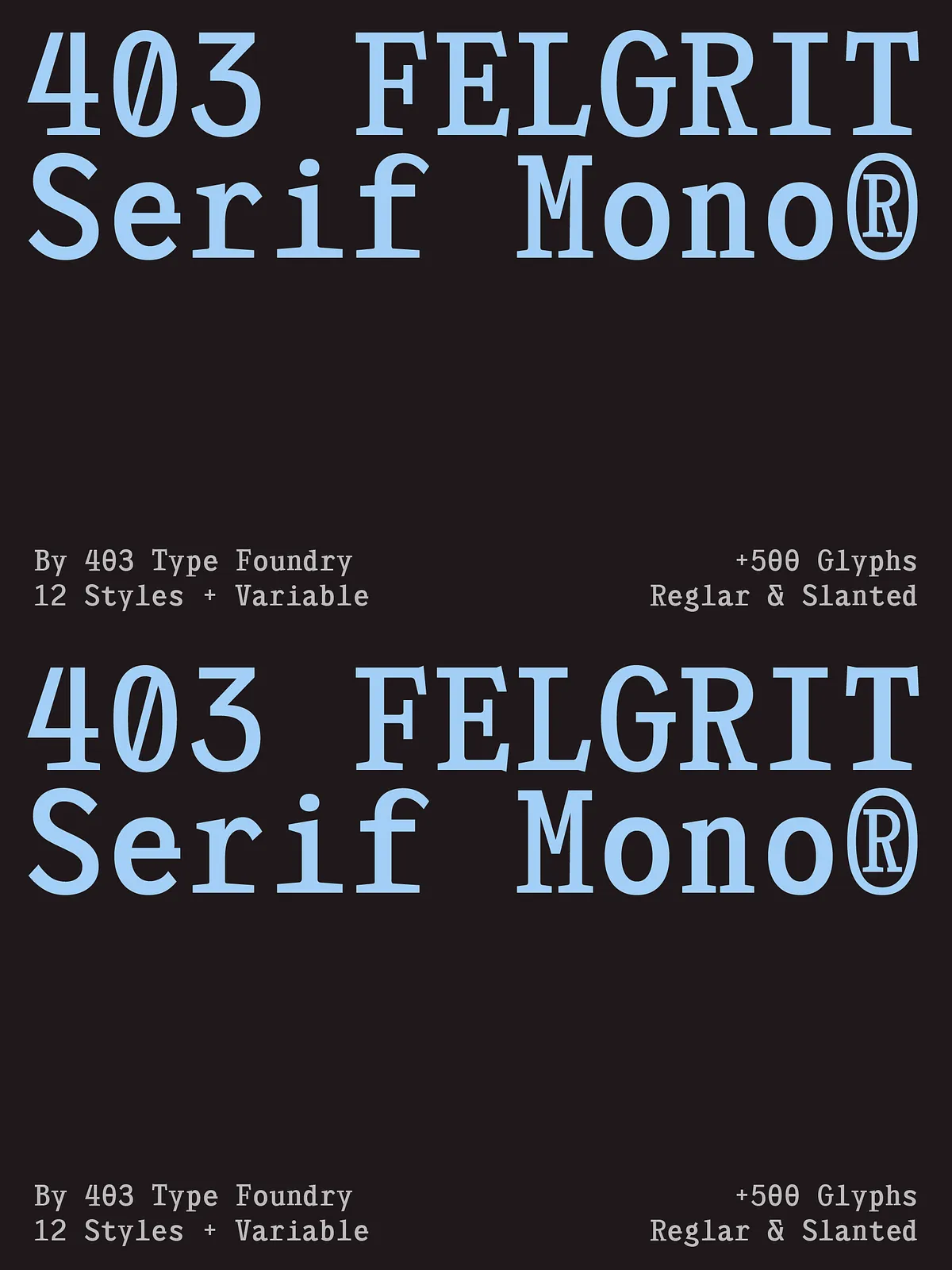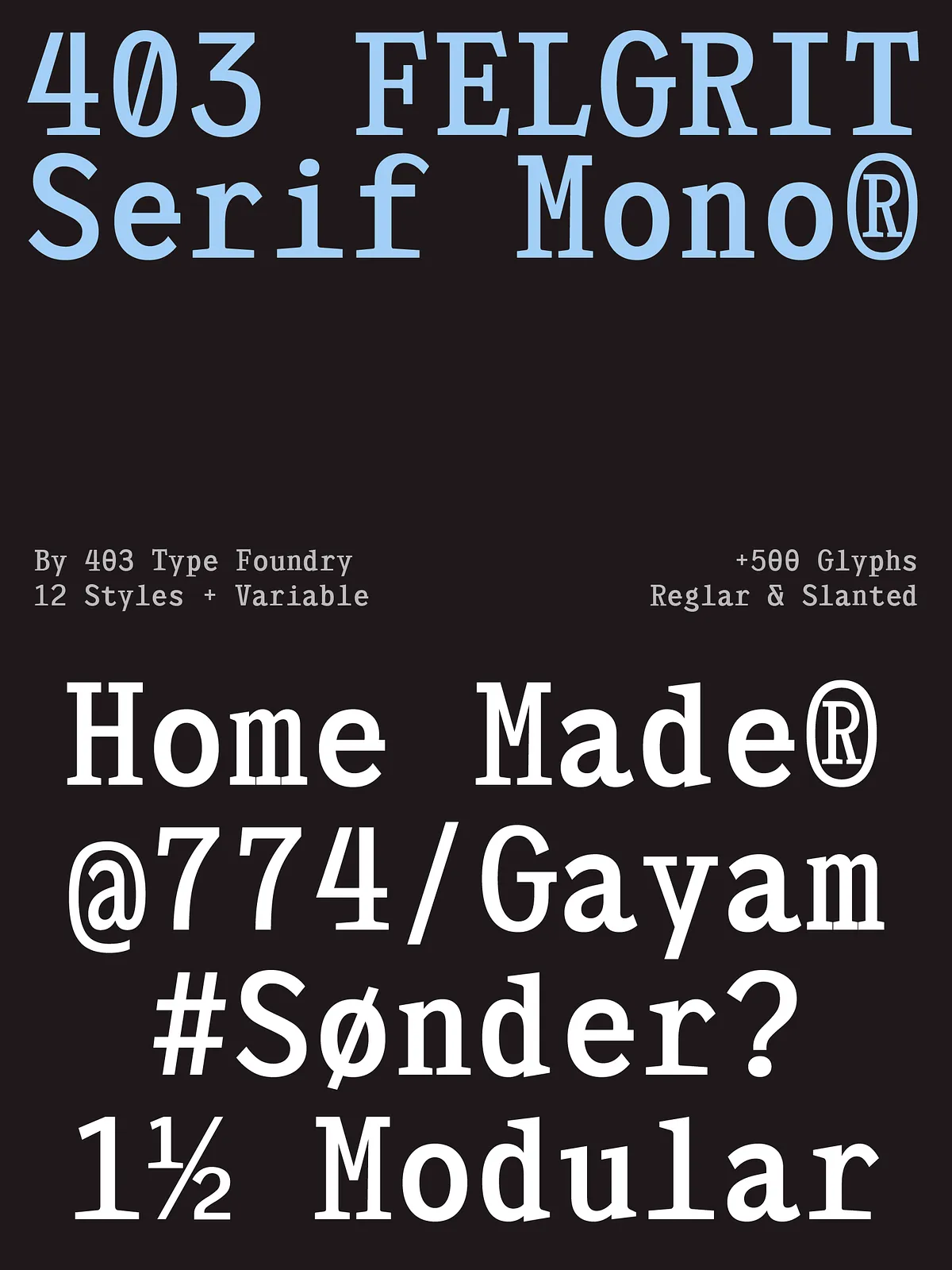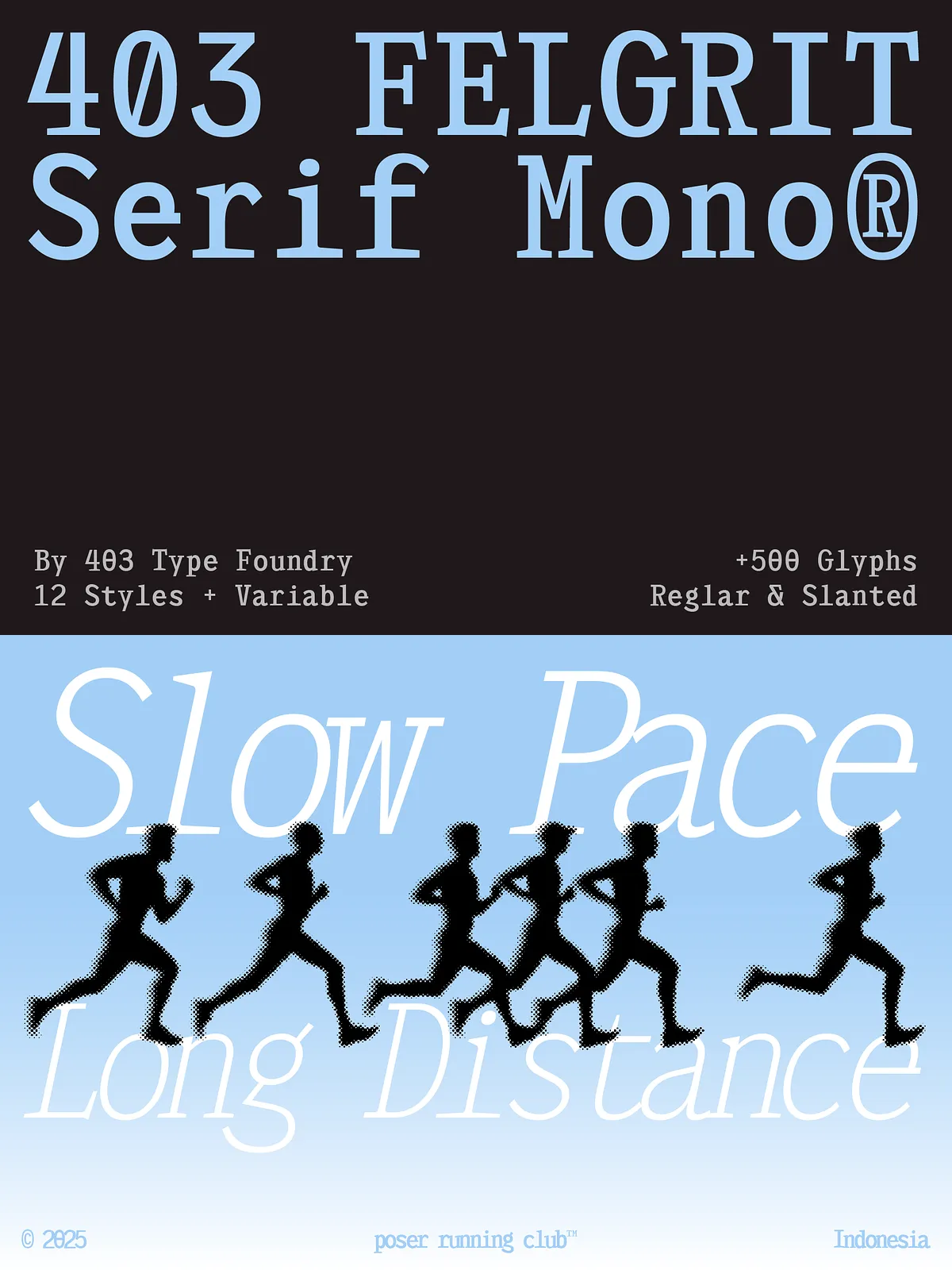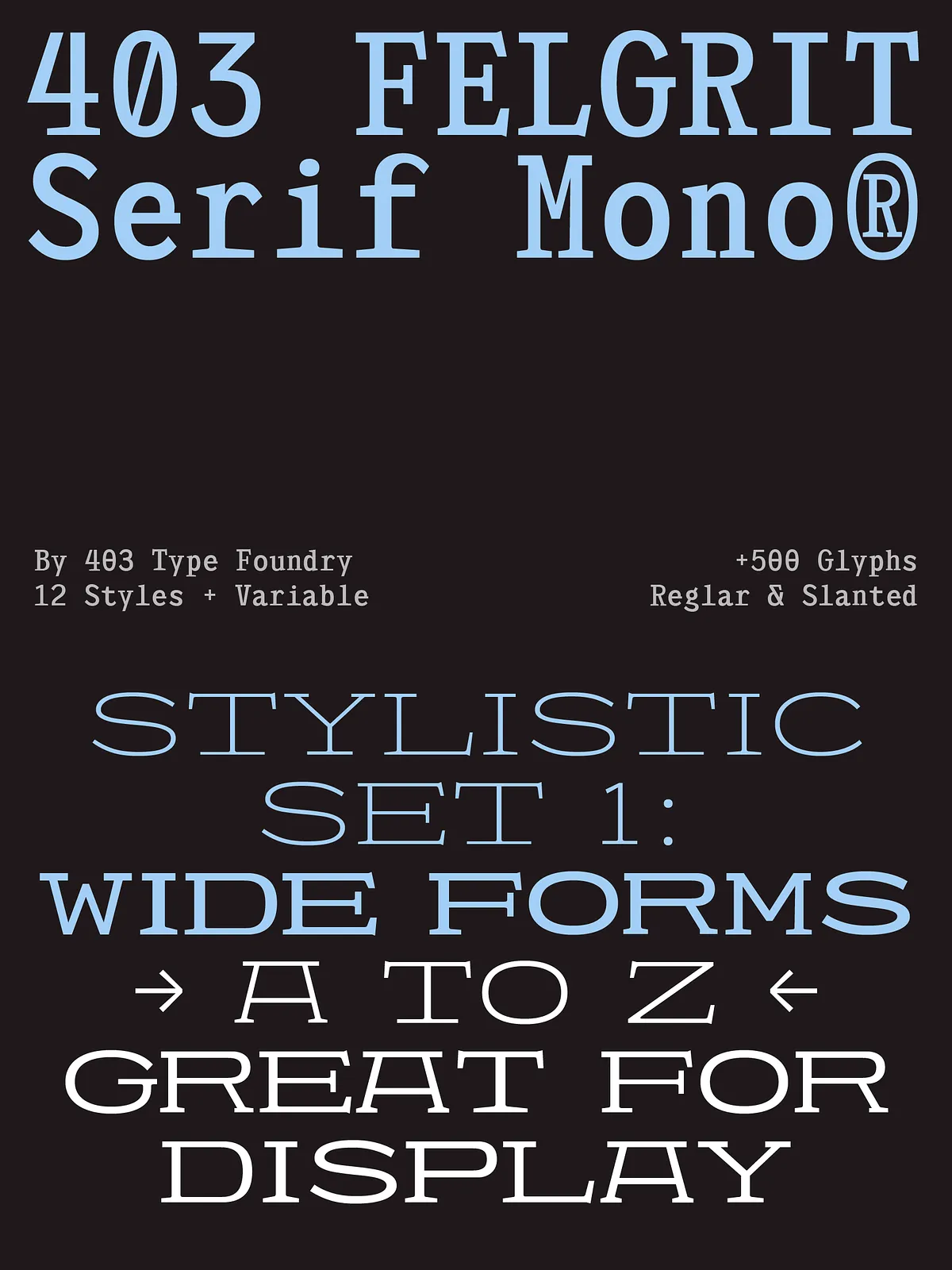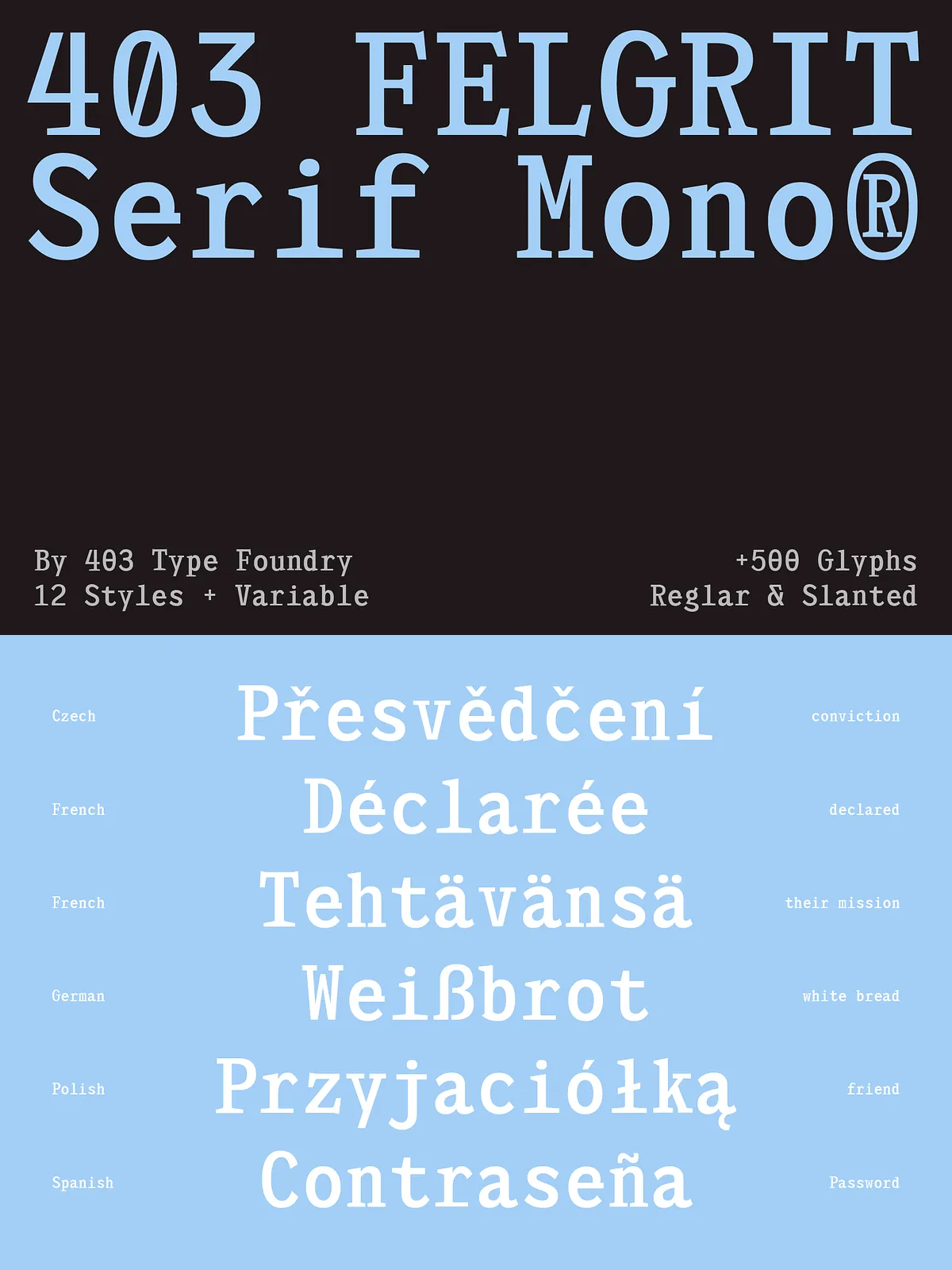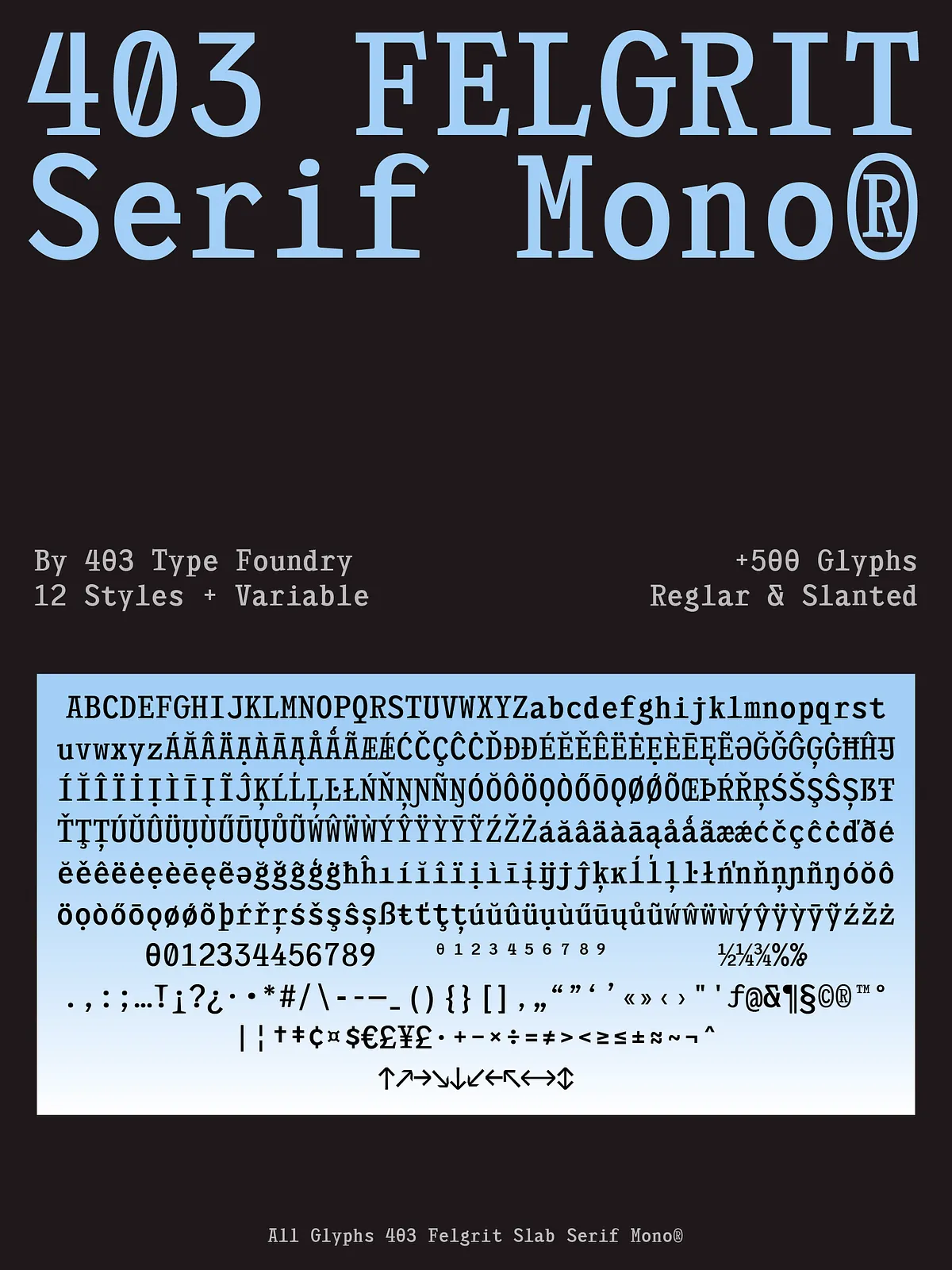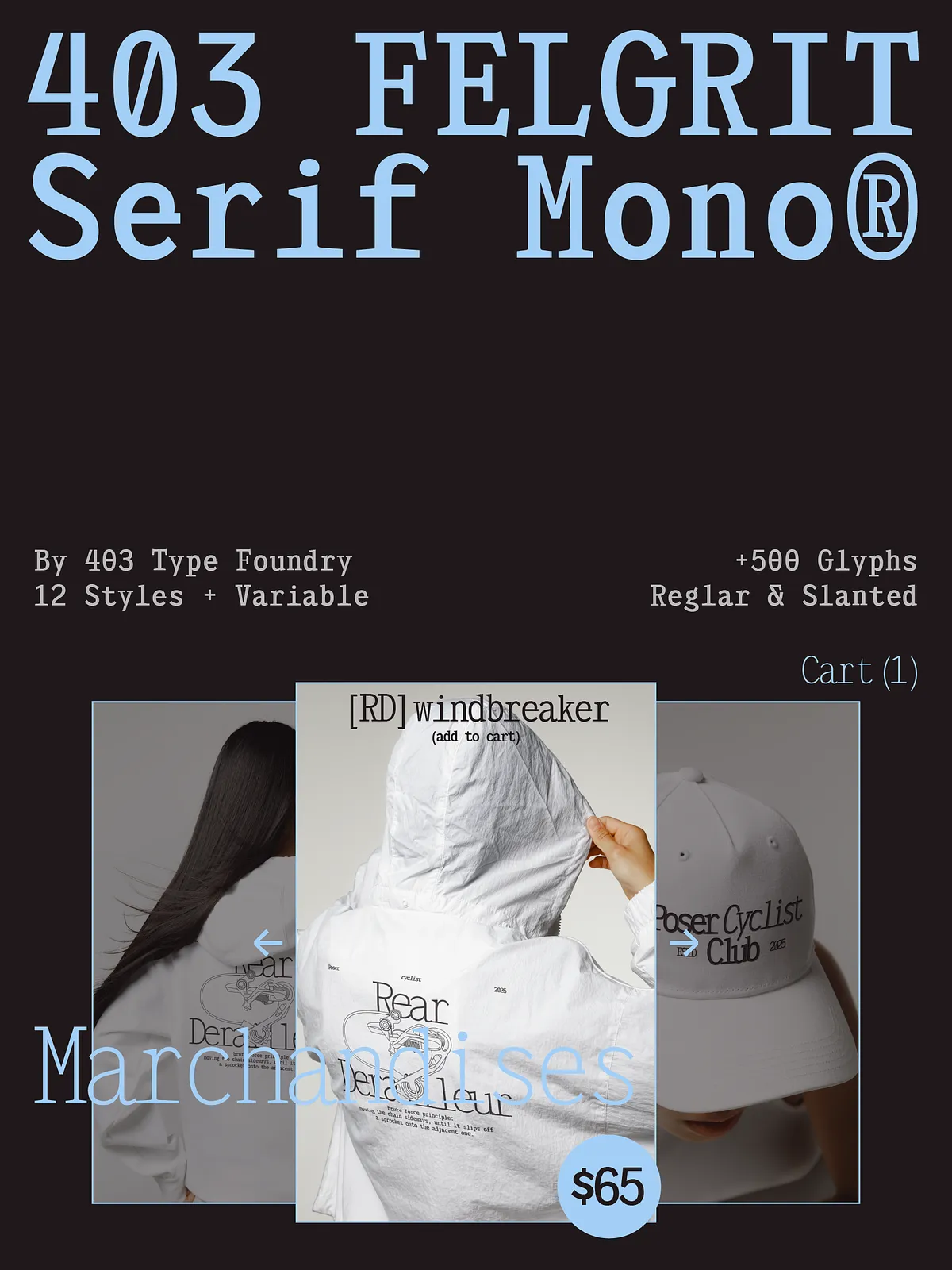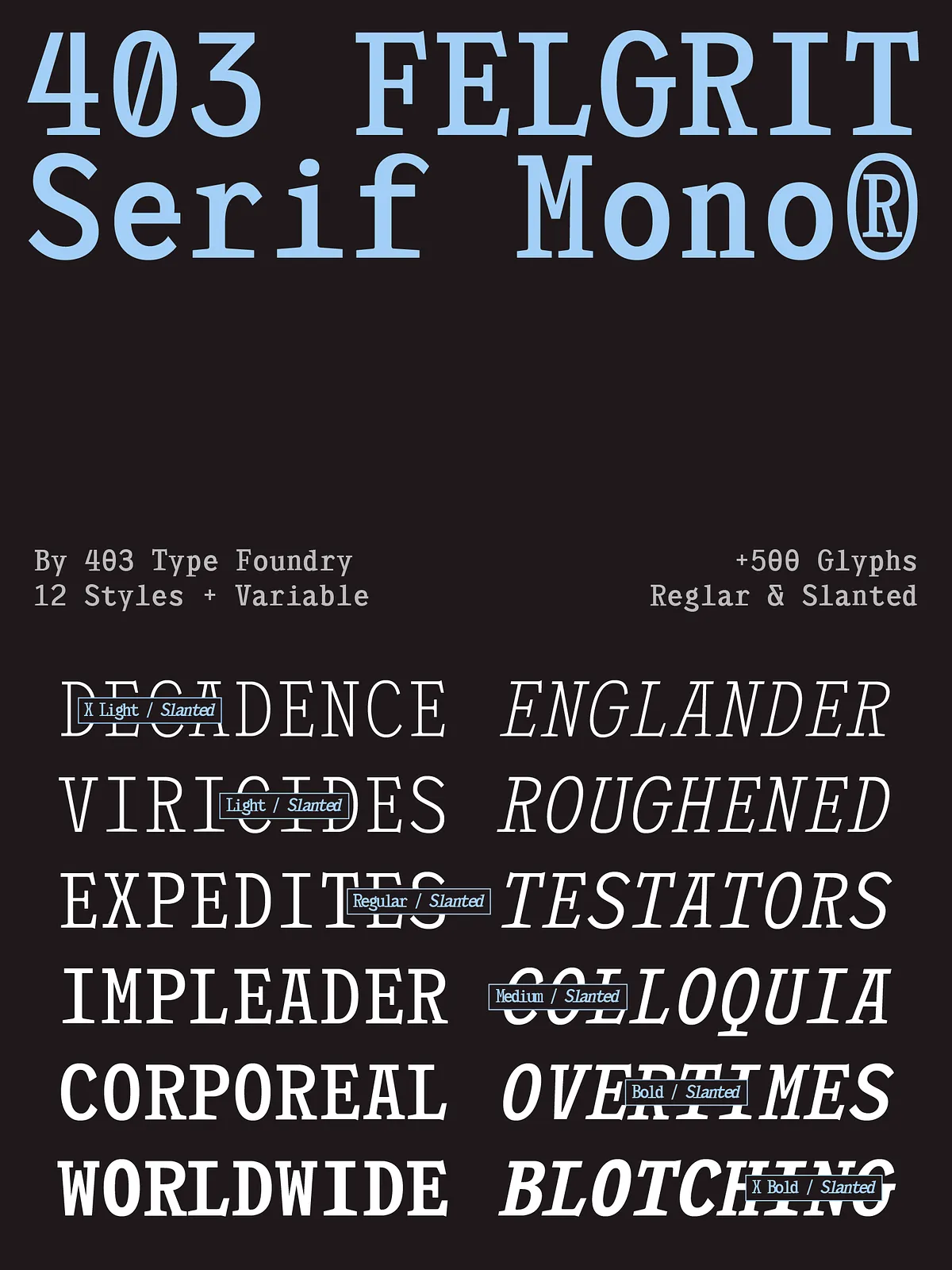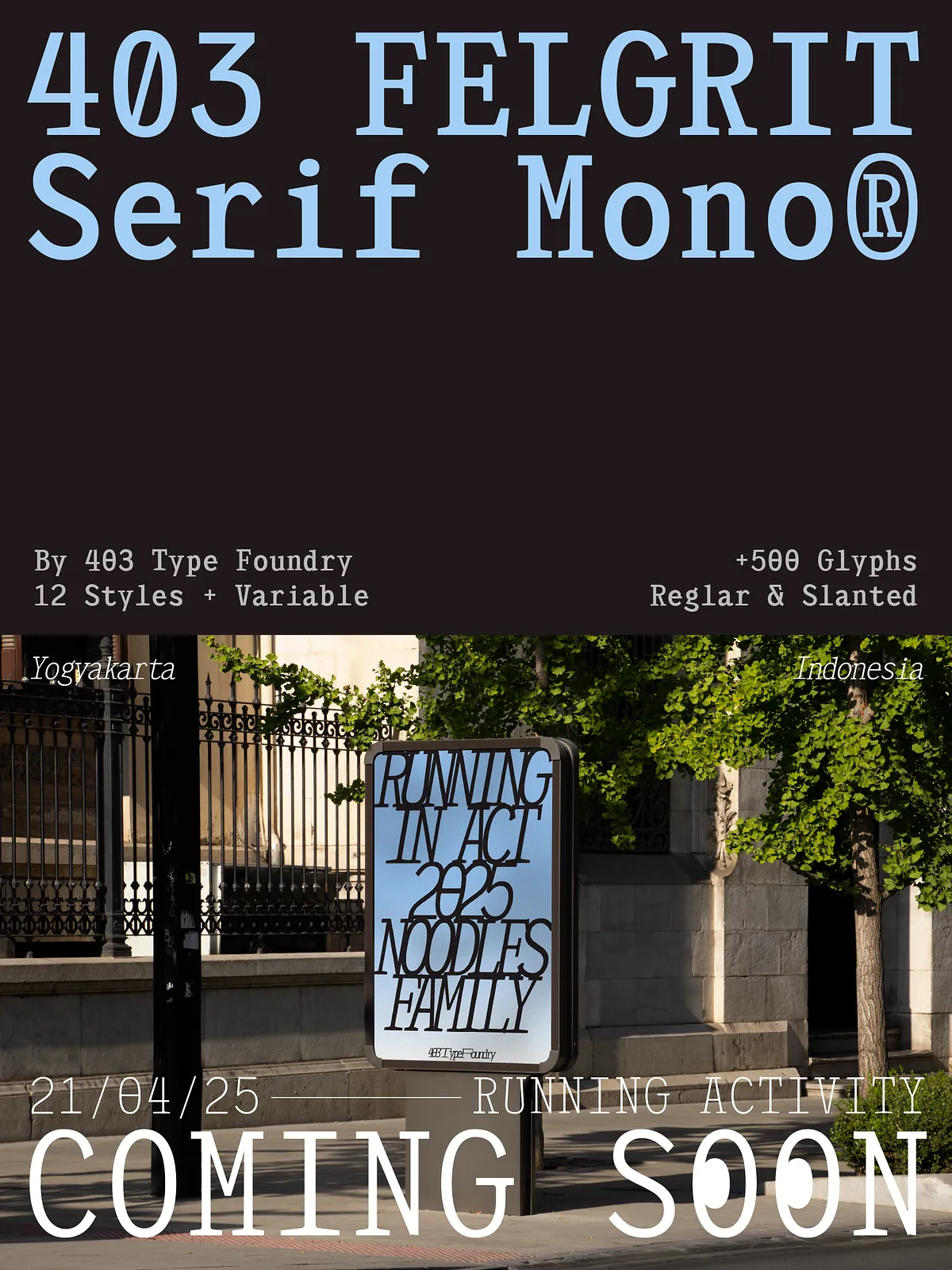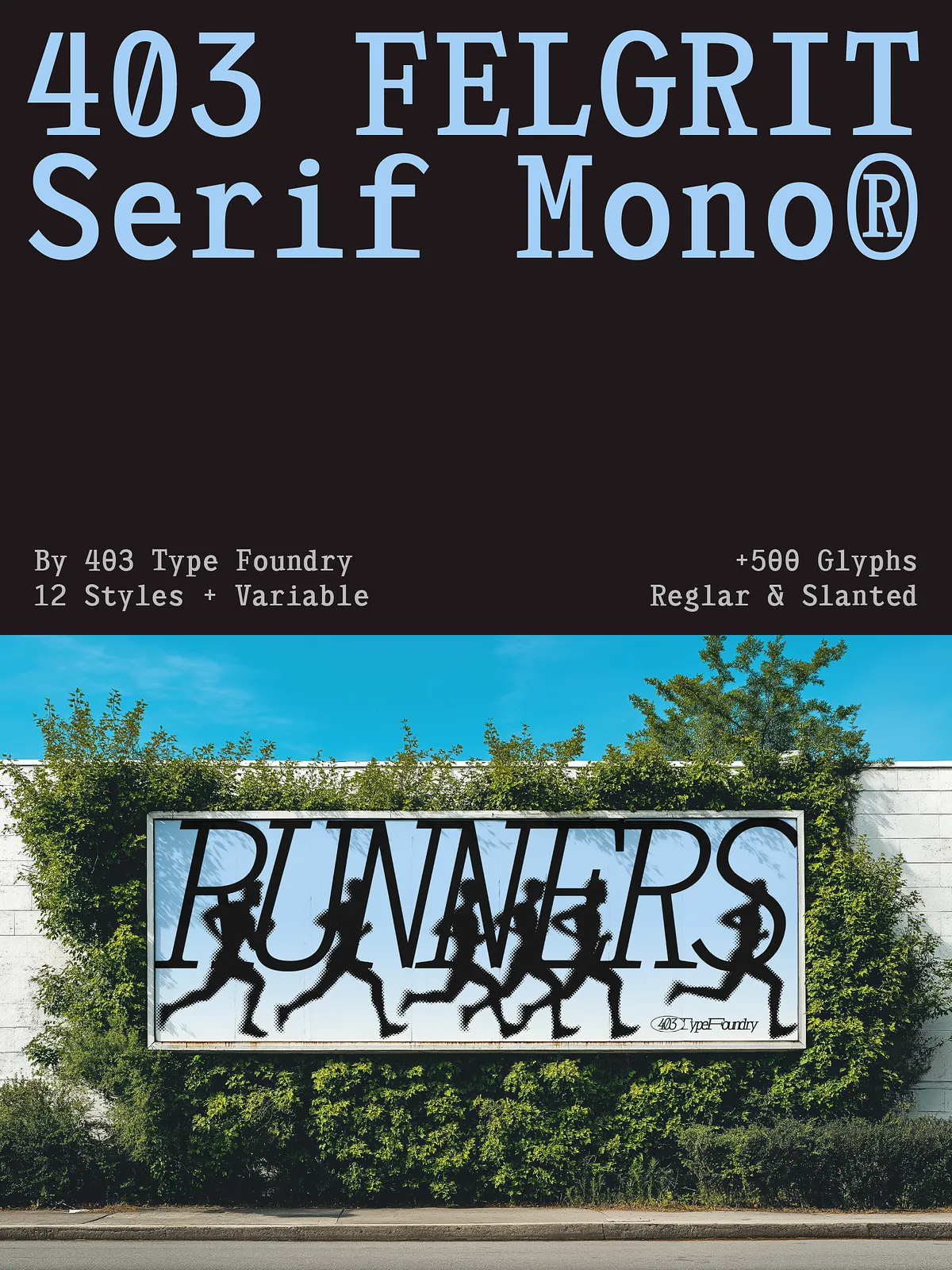
403 Felgrit
403 Felgrit Slab Serif Mono® isn’t a font. It’s a manifesto in type. Born from the rigid grids of modular layouts and the relentless pace of long-distance movement, this industrial monospaced slab serif brings order to chaos and rhythm to raw energy. Every character walks in perfect step—no deviation, no compromise. Blocky punctuation. Weighty caps. Wide, expressive alternates. This is precision with presence, design with attitude.
Whether you’re coding under pressure, building a digital identity, or dropping a high-impact poster in the urban wild, Felgrit doesn’t just keep up—it leads. It thrives where clarity meets aggression. Where structure meets soul. Where design stops being background and becomes front-page news.
Powerful Design for Modern, High-Stakes Applications
From code editors to protest signs—Felgrit runs the distance
Designers don’t just need functional fonts. They need weapons. 403 Felgrit delivers exactly that. It’s not designed for the average layout—it’s built for the ones that matter:
• Code Editors & Developer UI: Use Felgrit to give your syntax a mechanical backbone. Every function, loop, and command stands clear, unambiguous, and commanding. The monospaced layout ensures perfect alignment, while the bold slab serifs reinforce structure—making even complex logic instantly readable.
• Brand Identity & Logo Design: For brands that refuse to blend in. Felgrit adds grit, confidence, and tactile presence. Perfect for tech startups, manufacturing firms, music labels, urban fashion lines, and any identity that wants to feel real, rooted, and unapologetic.
• Posters, Campaigns & Street Art: Create headlines that stop pedestrians in their tracks. The wide stylistic alternates and sharp forms ensure your message cuts through noise—on walls, in zines, on billboards. This is type that doesn’t whisper; it echoes.
• UI Overlays & Digital Interfaces: Use it for system messages, alert panels, command inputs, or navigation headers. Felgrit adds visual weight and clarity, turning routine interactions into memorable experiences.
• Print & Apparel Design: From T-shirts to packaging, from menus to maps, Felgrit brings industrial elegance to tangible products. The sharp legibility at small sizes ensures your message stays powerful—no matter where it lands.
Twelve Dynamic Styles for Creative Control
Regular, Slanted, Modular—each style with a purpose
403 Felgrit isn’t limited to a single face. It launches with 12 meticulously crafted styles, each engineered for a different mission:
• 403 Felgrit Regular: The foundation. Ideal for body text, coding blocks, and default system typography. Solid, dependable, and ready for action.
• 403 Felgrit Slanted: Introduce movement and momentum. Use this for dynamic headlines, motion graphics, or to signal shift and change in a design flow.
• 403 Felgrit Modular: Designed for grids, templates, and technical layouts. Every glyph aligns perfectly—ideal for infographics, data visualizations, and architectural schematics.
• Styles with Stylistic Sets A–Z: Access to over 500 glyphs including alternates, arrows, mathematical symbols, currency marks, and punctuation—perfect for advanced typographic expression and custom symbol systems.
With this range, you’re not just choosing a font—you’re selecting a language. Use the styles to guide the eye, build rhythm, and signal tone. From calm precision to explosive emphasis, Felgrit gives you full control.
Advanced Typographic Power for Professionals
OpenType features. Multilingual reach. Seamless integration
Engineered for real-world workflows, Felgrit includes industry-standard OpenType features enabling professional-level typography:
• Full Latin & Extended Character Support: Over 270 supported Latin languages — ideal for global teams, international branding, and multilingual documentation.
• Proportional & Monospaced Dual Support: Switch between monospaced rigidity and proportional fluidity as needed — perfect for hybrid layouts.
• Stylistic Sets & Ligatures: Access to advanced typographic alternatives for display, branding, and visual rhythm control.
• PUA Encoding: Access to exclusive symbols, icons, and custom glyphs without layout conflicts—ideal for internal tools, design systems, or data visuals.